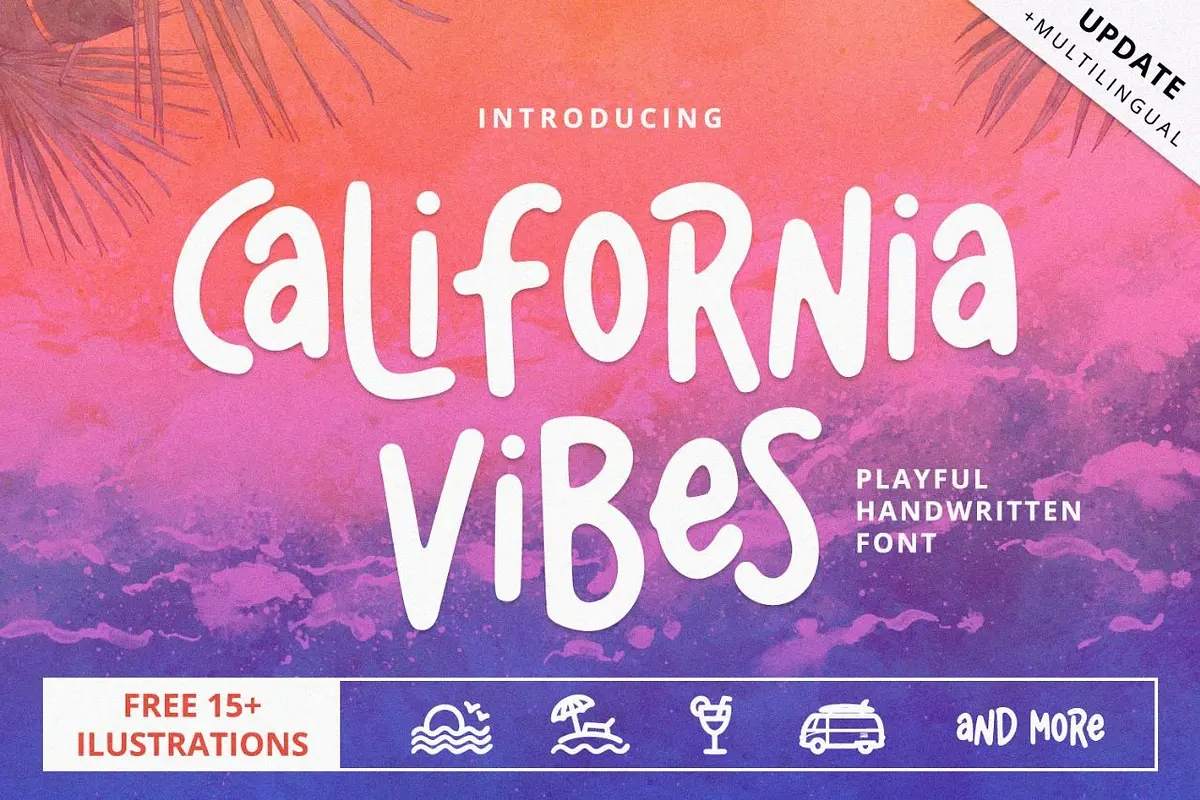
California Vibes – Playful Font Free Download is a fun, carefree typeface inspired by sunny days, beach adventures, and the relaxed spirit of the West Coast. With its bold, bouncy letterforms and cheerful personality, this font is perfect for summer-themed designs, kids’ products, social media graphics, event posters, apparel, and lifestyle branding.
Designed to bring a smile, California Vibes Free Download captures the essence of fun and freedom. It’s great for eye-catching headlines and playful quotes, working beautifully in both digital and print projects where energy and personality are key.